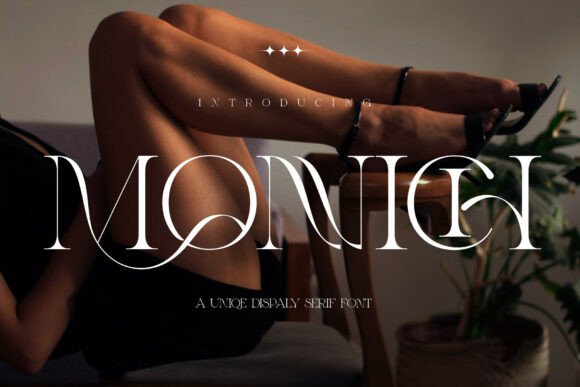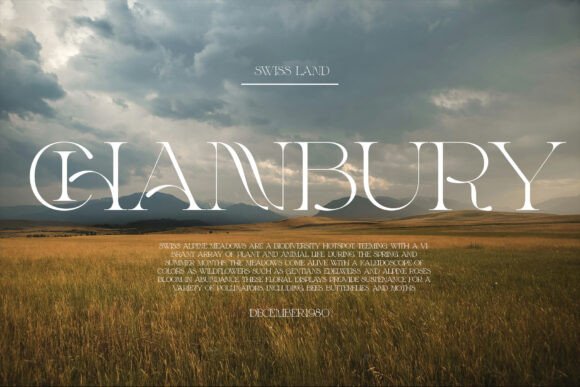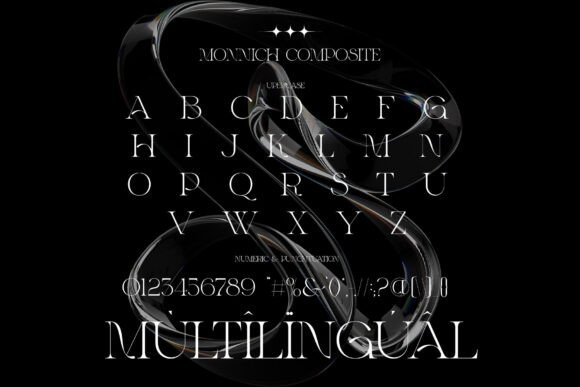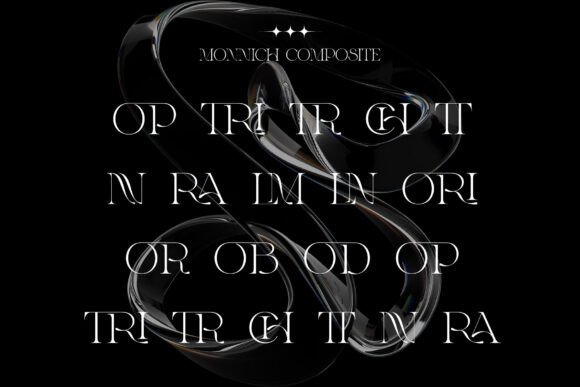
Monnich Font: Elegant Ligature Serif for Modern Branding & Logo Design
About the Monnich Font
The Monnich Font is here to transform your projects with its distinctive character and style. Monnich is an elegant ligature serif modern font that evokes the beauty of fresh blooms and timeless elegance. With its bold yet refined ligatures,Monnich stands out as a sophisticated and feminine typeface. Perfect for upscale designs, whether for florals, fashion, or high-end branding, Monnich pairs the charm of classic serif styles with a modern twist. Every letter feels intentional, with a soft and graceful presence that elevates any project it touches.
Monnich excels in headline treatments, short text blocks for branding materials, and elegant packaging designs. Its ligatures add a distinctive touch to logos and short marketing copy, enhancing visual appeal. However, its elegance may become overwhelming in large bodies of text or UI elements where readability is paramount; avoid using it for long paragraphs or website content.
To complement its refined personality, consider pairing Monnich with a clean sans-serif like Lato for body copy or a geometric sans-serif like Futura for a more modern feel. For a touch of contrast, a delicate script font could add a layer of whimsy while maintaining the overall upscale aesthetic.
Monnich projects a sophisticated and feminine personality, ideal for brands focused on luxury, beauty, fashion, or high-end products. Its inherent elegance makes it suitable for projects requiring a sense of timeless quality and refinement.